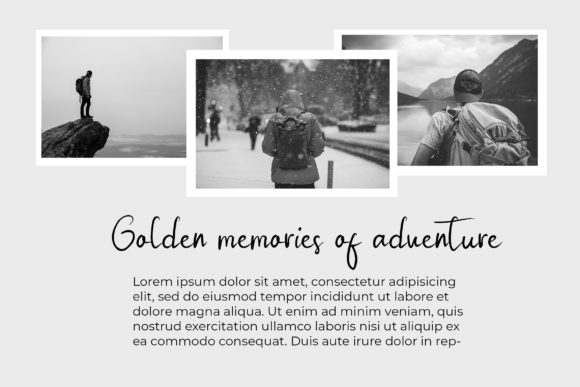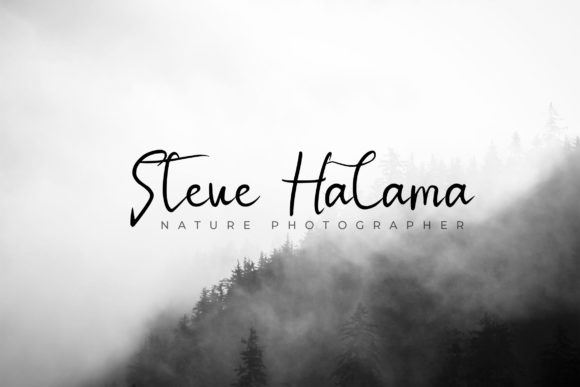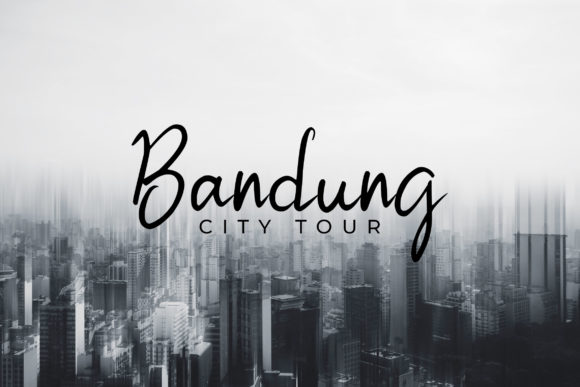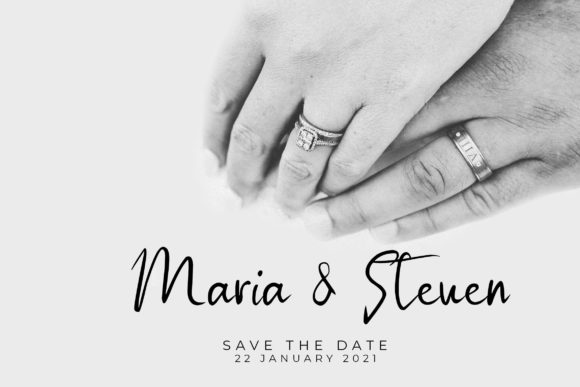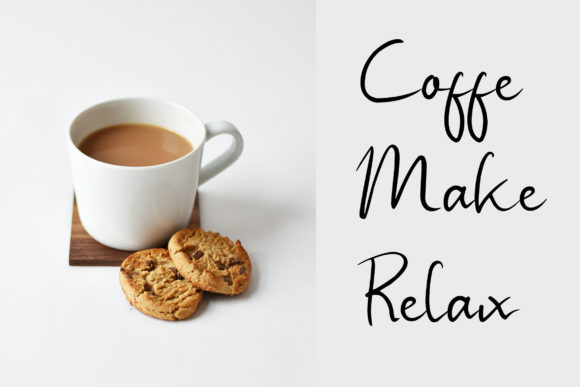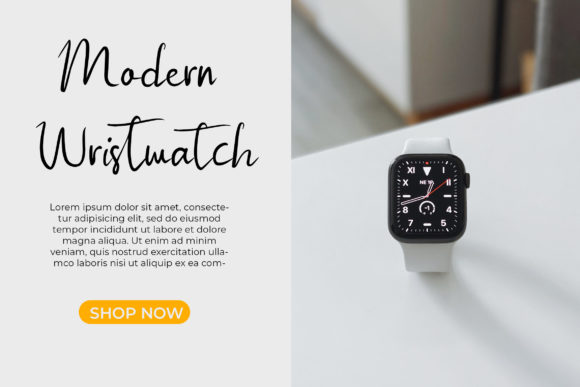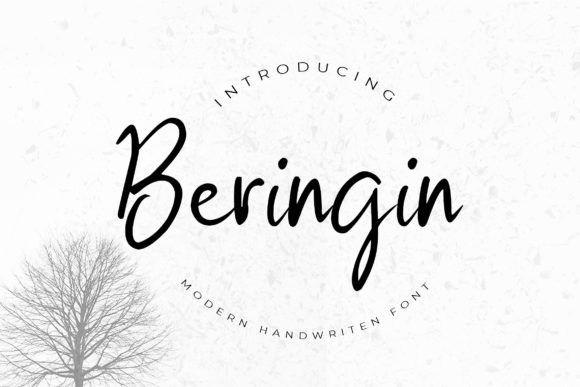
Beringin Font: Elevate Your Designs with Elegant Script Typography
In the world of typography, a well-crafted font can make all the difference in elevating your designs to new heights. For designers and crafters seeking to add a touch of sophistication and elegance to their projects, the Beringin font is an exceptional choice. Inspired by timeless classic calligraphy, Beringin is a contemporary script font that exudes refinement and poise.
The Characteristics of Beringin Font
Beringin is characterized by its impeccable form, balanced and varied strokes that are neither too thin nor too thick. This thoughtful design ensures that the font is versatile and adaptable, suitable for a wide range of applications. Whether you’re working on a luxury brand logo, a wedding invitation, or a high-end product packaging, Beringin font is poised to enhance the beauty of your projects.
What Makes Beringin Stand Out?
- Elegant and Refined: Beringin’s script style is reminiscent of classic calligraphy, lending an air of sophistication to any design.
- Contemporary Atmosphere: Despite its classic inspiration, Beringin boasts a modern feel that will make your designs stand out in today’s fast-paced digital landscape.
- Balanced and Varied: The font’s balanced strokes and varied letterforms ensure that your text remains legible and visually appealing, even at smaller sizes.
- Versatile: Beringin’s adaptability makes it suitable for a broad spectrum of design projects, from branding and advertising to packaging and editorial design.
How to Use Beringin Font in Your Designs
Integrating Beringin into your design workflow is straightforward. Here are a few tips to get you started:
- Pair with Complementary Fonts: Combine Beringin with sans-serif fonts for contrast, or with other script fonts for a layered, elegant look.
- Experiment with Sizes: Beringin’s balanced design ensures it looks great at various sizes, from large headings to smaller body text.
- Pay Attention to Kerning: As with any font, especially script ones, pay attention to kerning to ensure your text is beautifully spaced and easy to read.
Who Can Benefit from Beringin Font?
Beringin font is a valuable asset for a variety of professionals and designers, including:
- Graphic Designers: Looking for elegant typography to elevate their branding, advertising, and marketing materials.
- Wedding and Event Planners: Seeking sophisticated fonts for invitations, menus, and event collateral.
- Packaging Designers: Needing high-end typography for luxury product packaging.
- Stationery and Journal Designers: Aiming to add a touch of elegance to notebooks, journals, and stationery sets.
Beringin font offers a unique blend of classic elegance and contemporary flair, making it an excellent addition to any designer’s toolkit. Its versatility, legibility, and aesthetic appeal ensure that it can elevate a wide range of projects, from luxury branding to beautiful stationery. Whether you’re a seasoned designer or a crafting enthusiast, Beringin is poised to bring a touch of sophistication and beauty to your work.